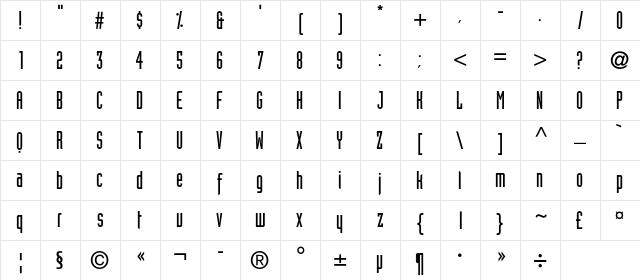
Blits-One Regular
Design Context for Blits-One Typeface
Blits-One offers clean, dependable letterforms without strong stylistic allegiance, making it a practical choice for designers who need flexibility.